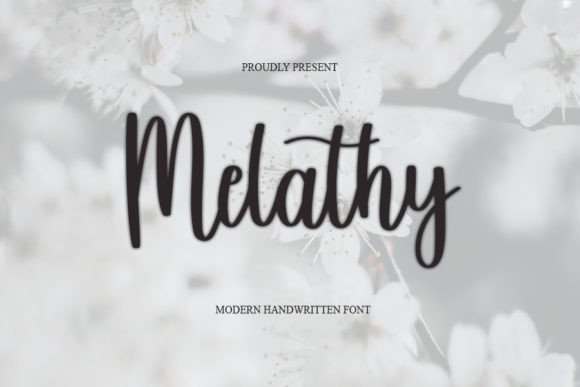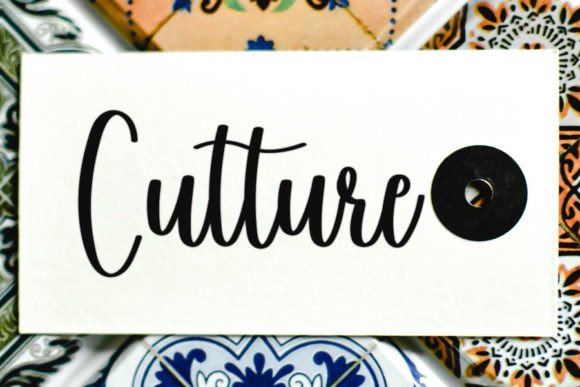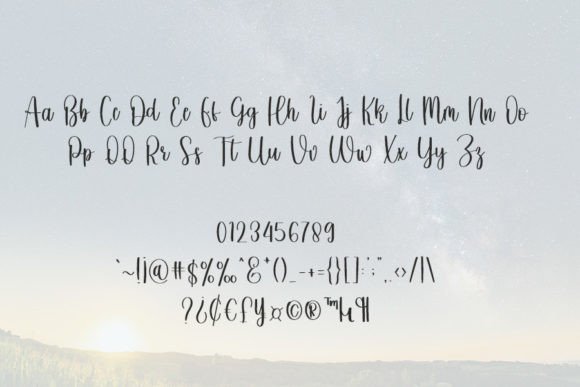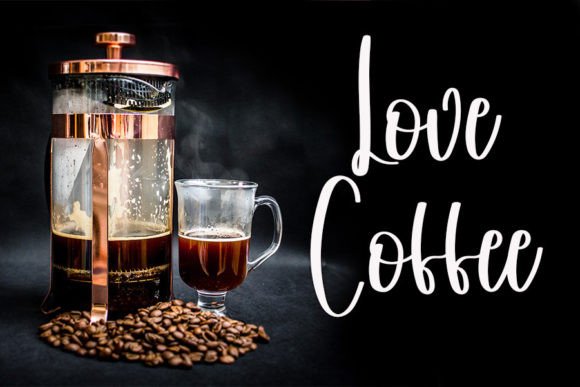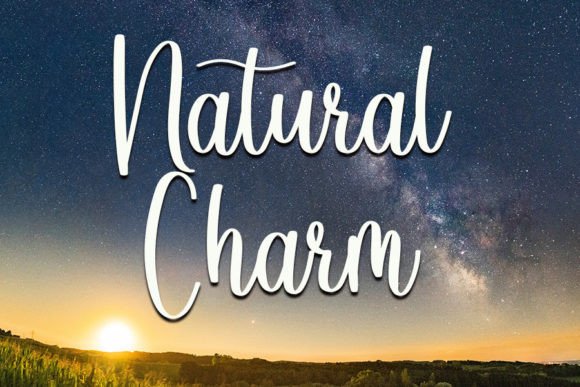
Melathy Font
About Melathy Font
Melathy is a cool handwritten font with a modern vibe and spotless form, inspired by classic calligraphy. Not too thin and not too thick, balanced and varied, this font was designed to enhance the beauty of your projects.